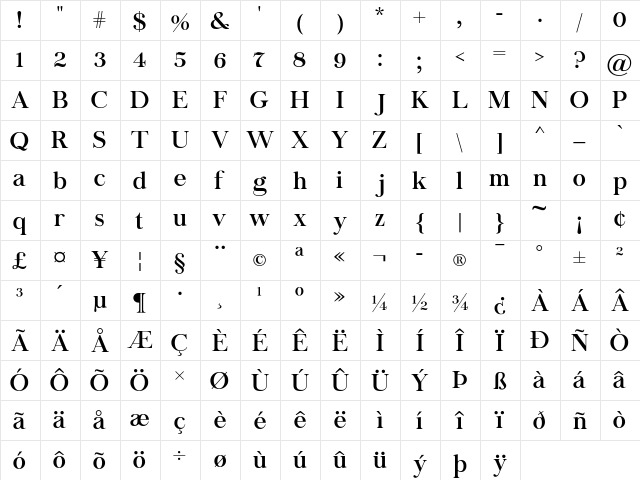
Chapaza Regular
Design Context for Chapaza Typeface
Chapaza offers clean, dependable letterforms without strong stylistic allegiance, making it a practical choice for designers who need flexibility.
Pro Tip: Pair Chapaza with a font of contrasting weight or personality to build a more expressive typographic hierarchy.